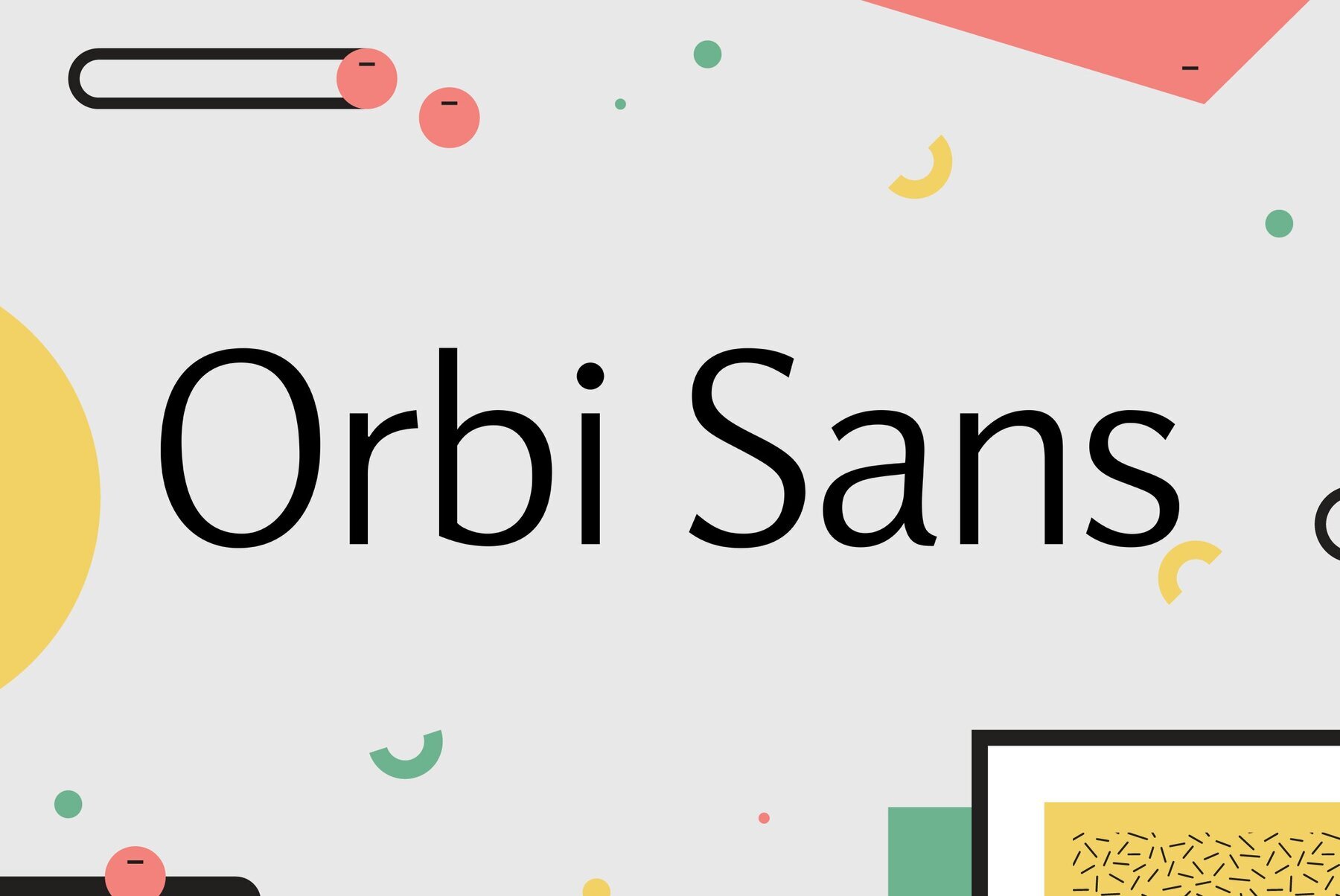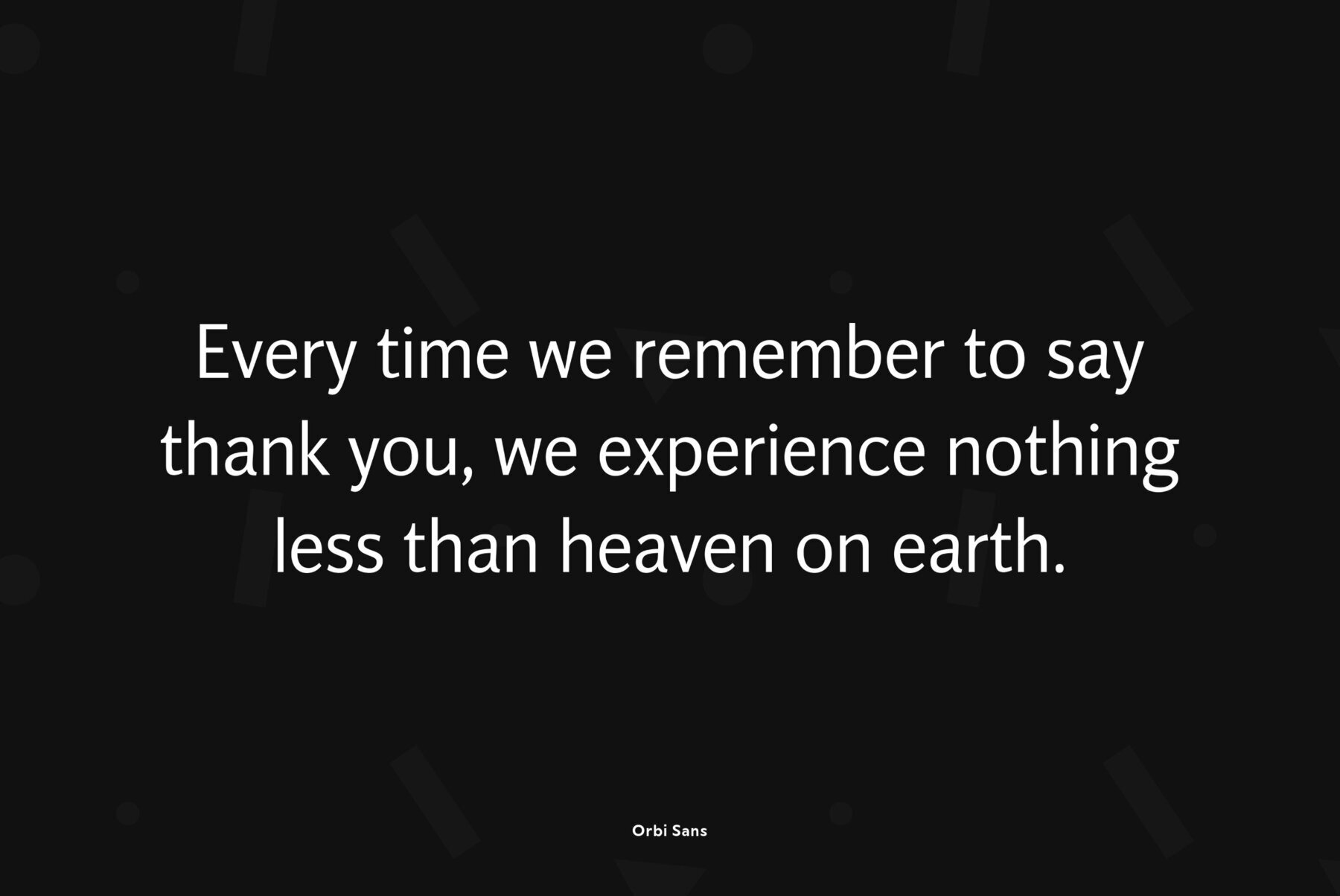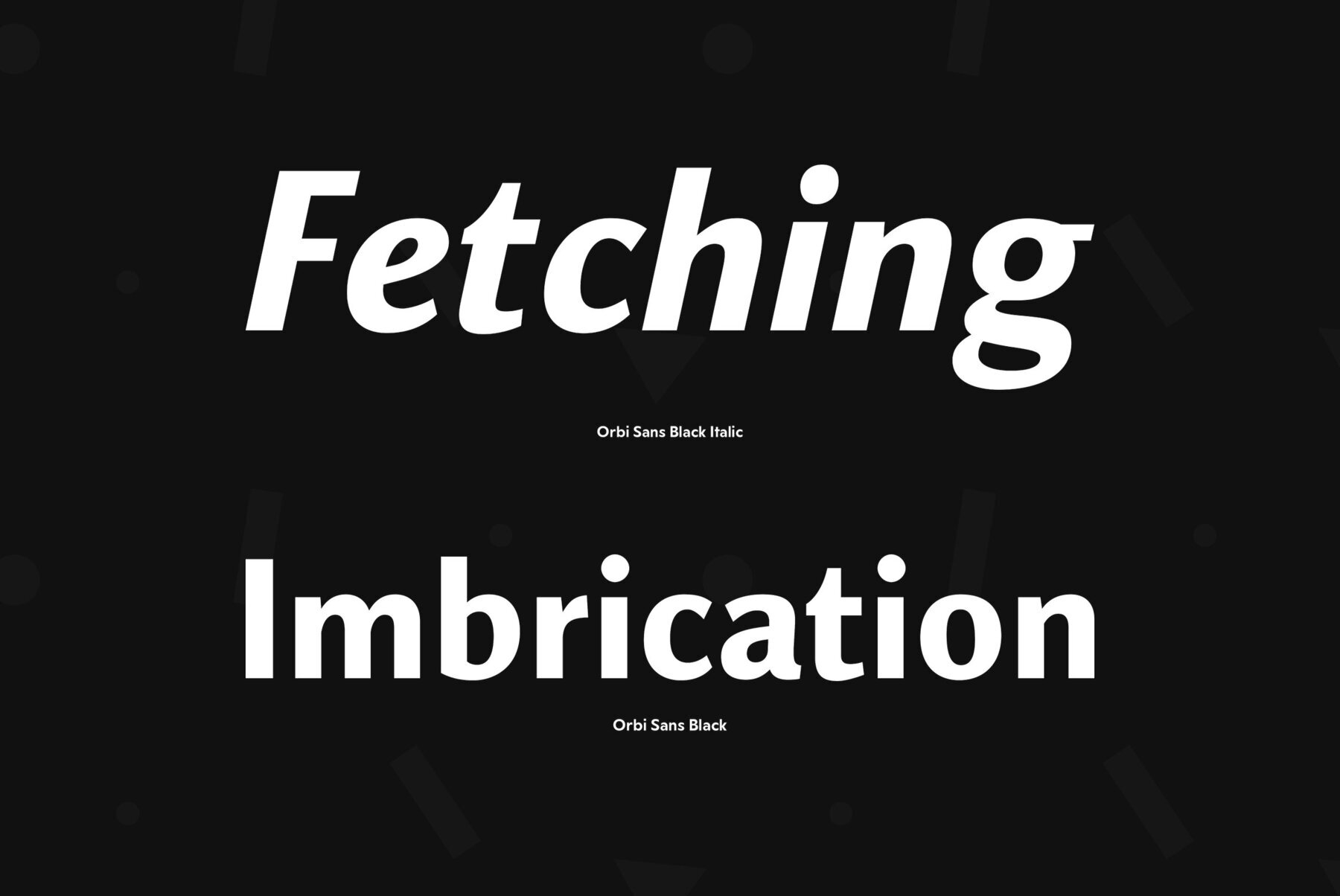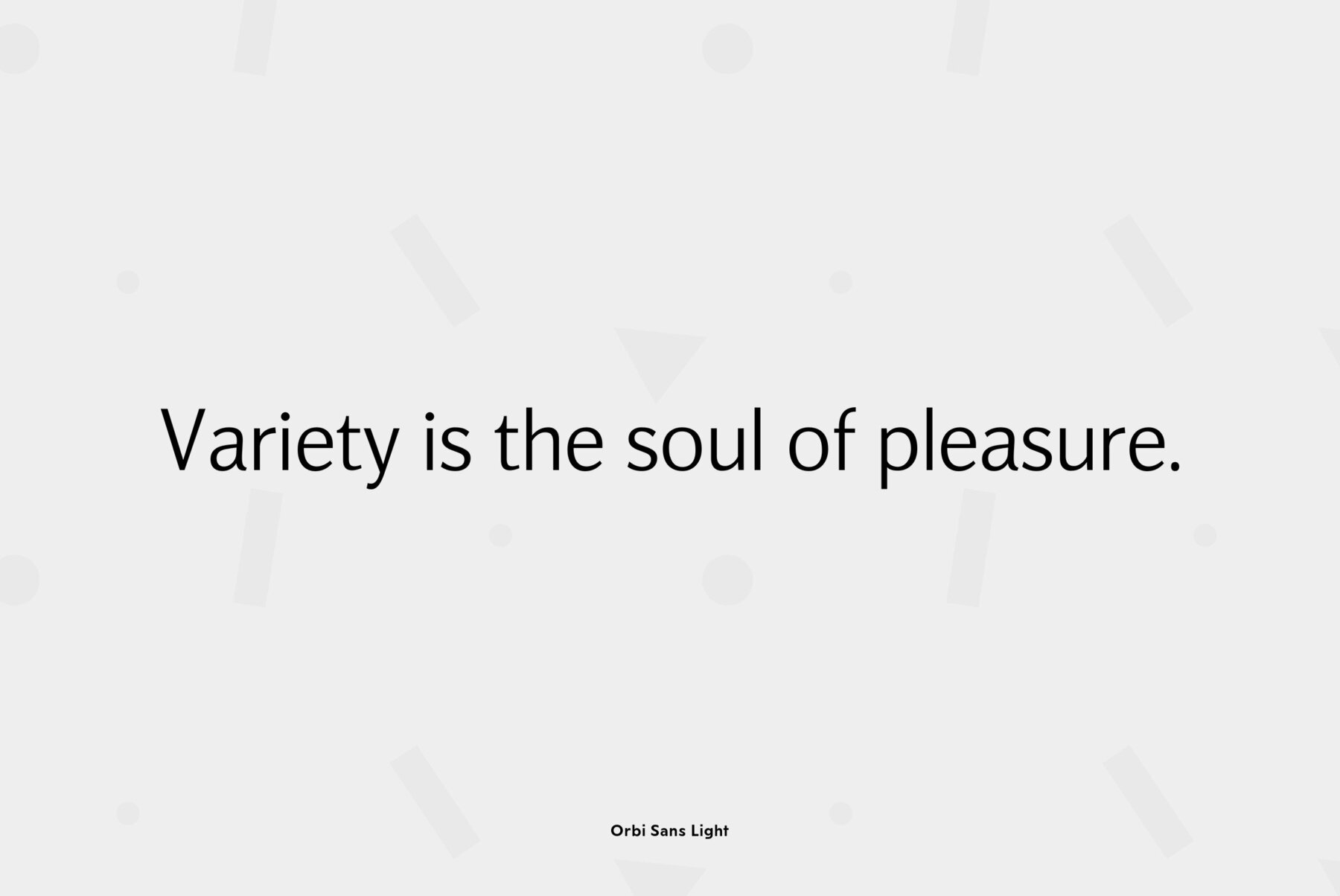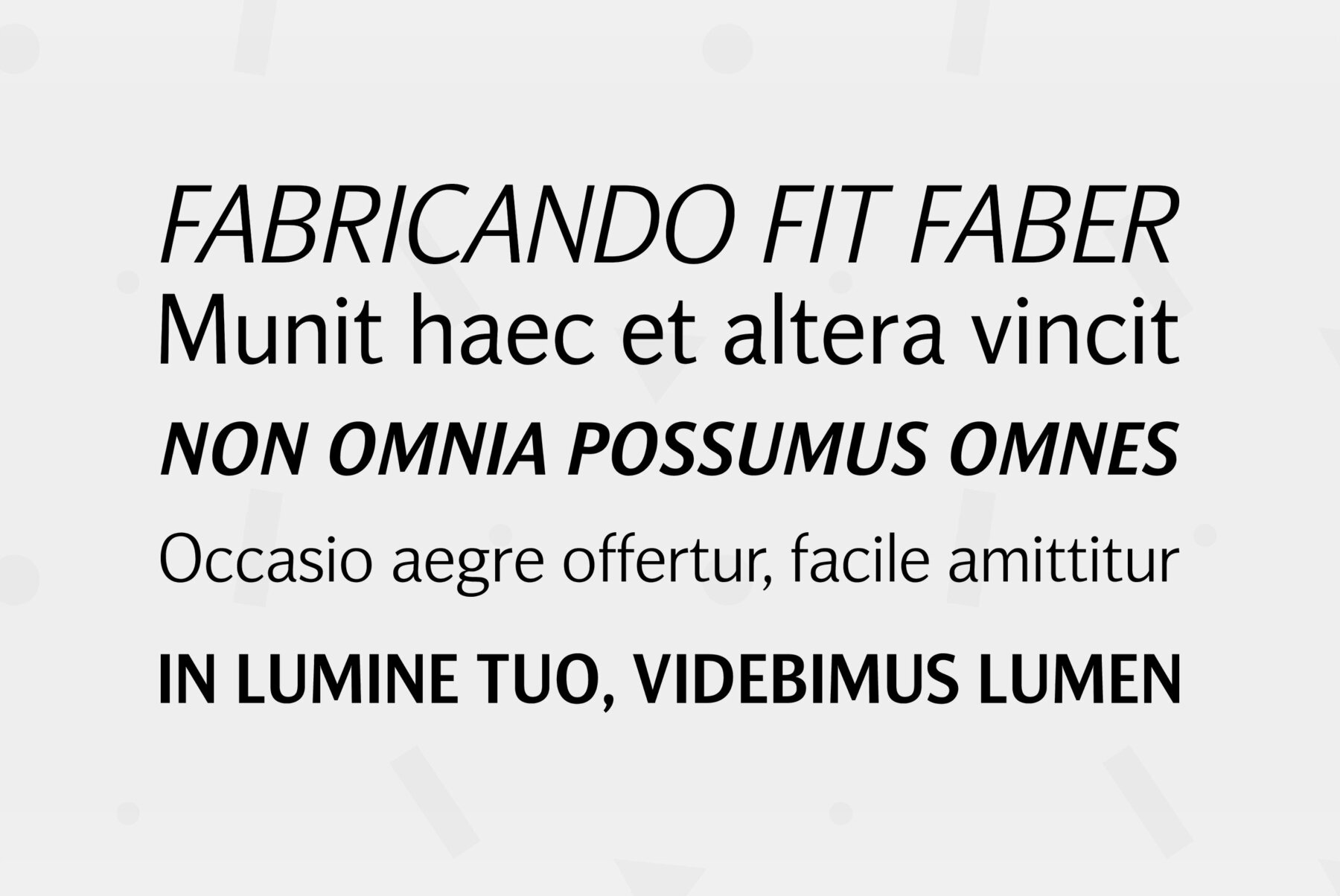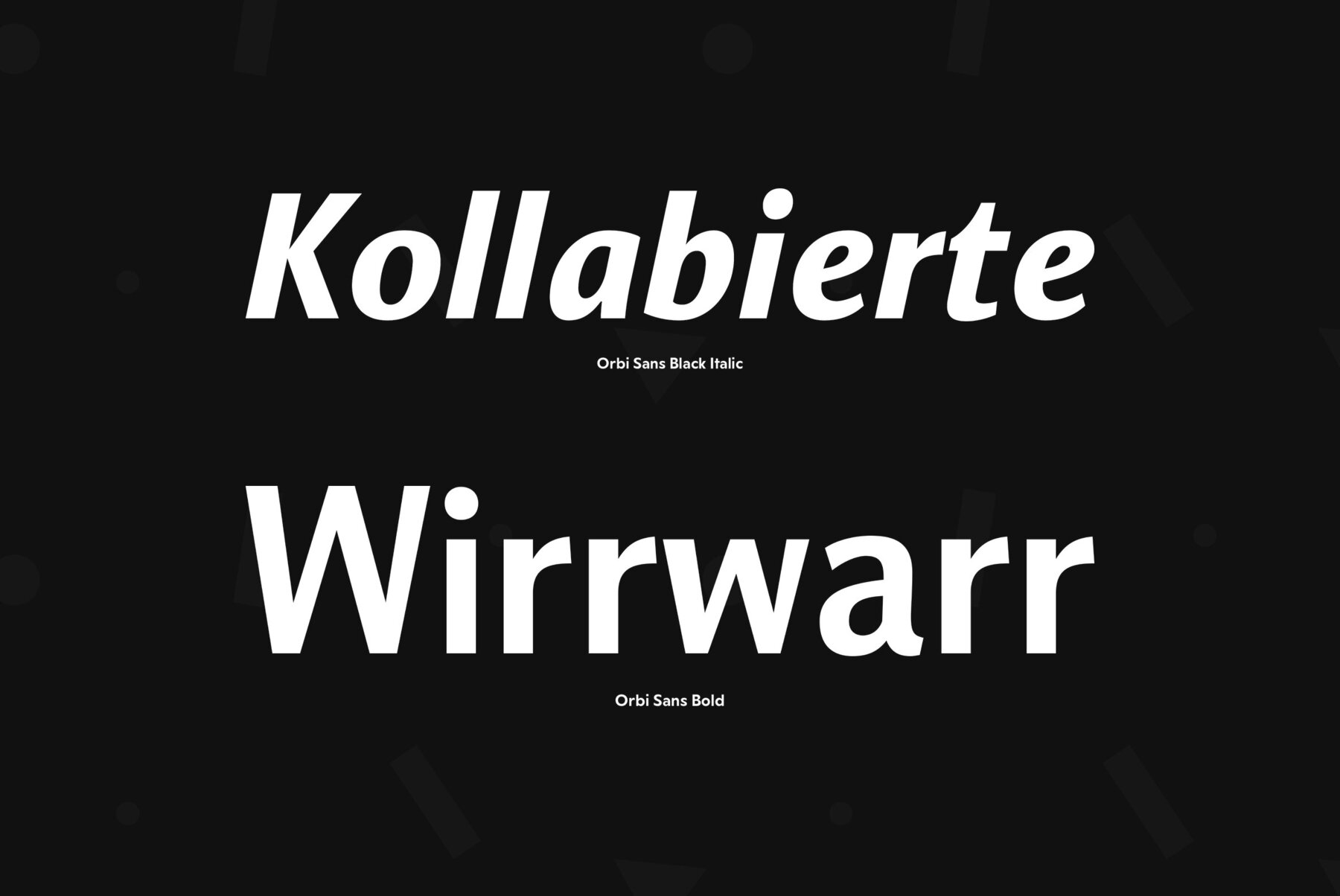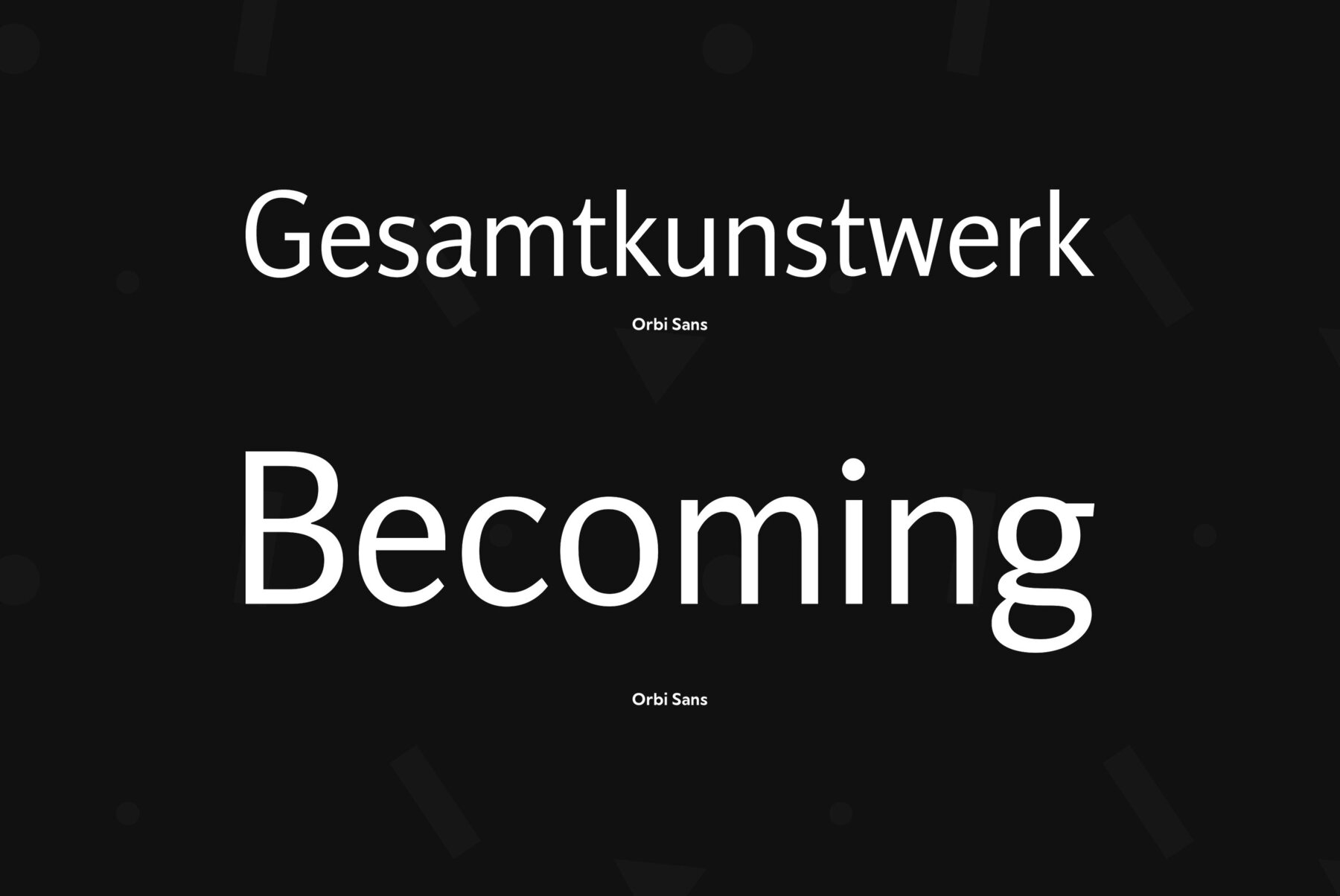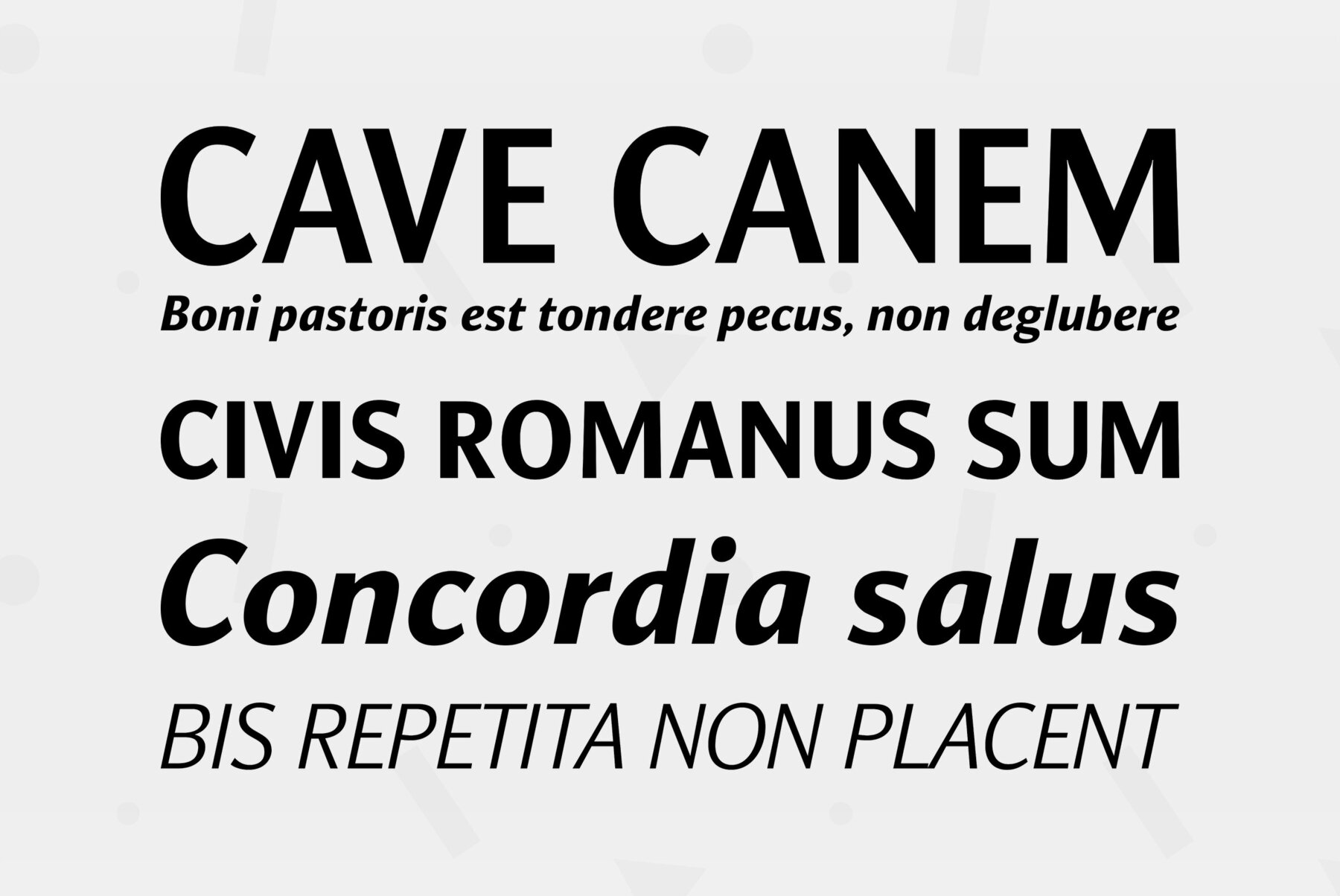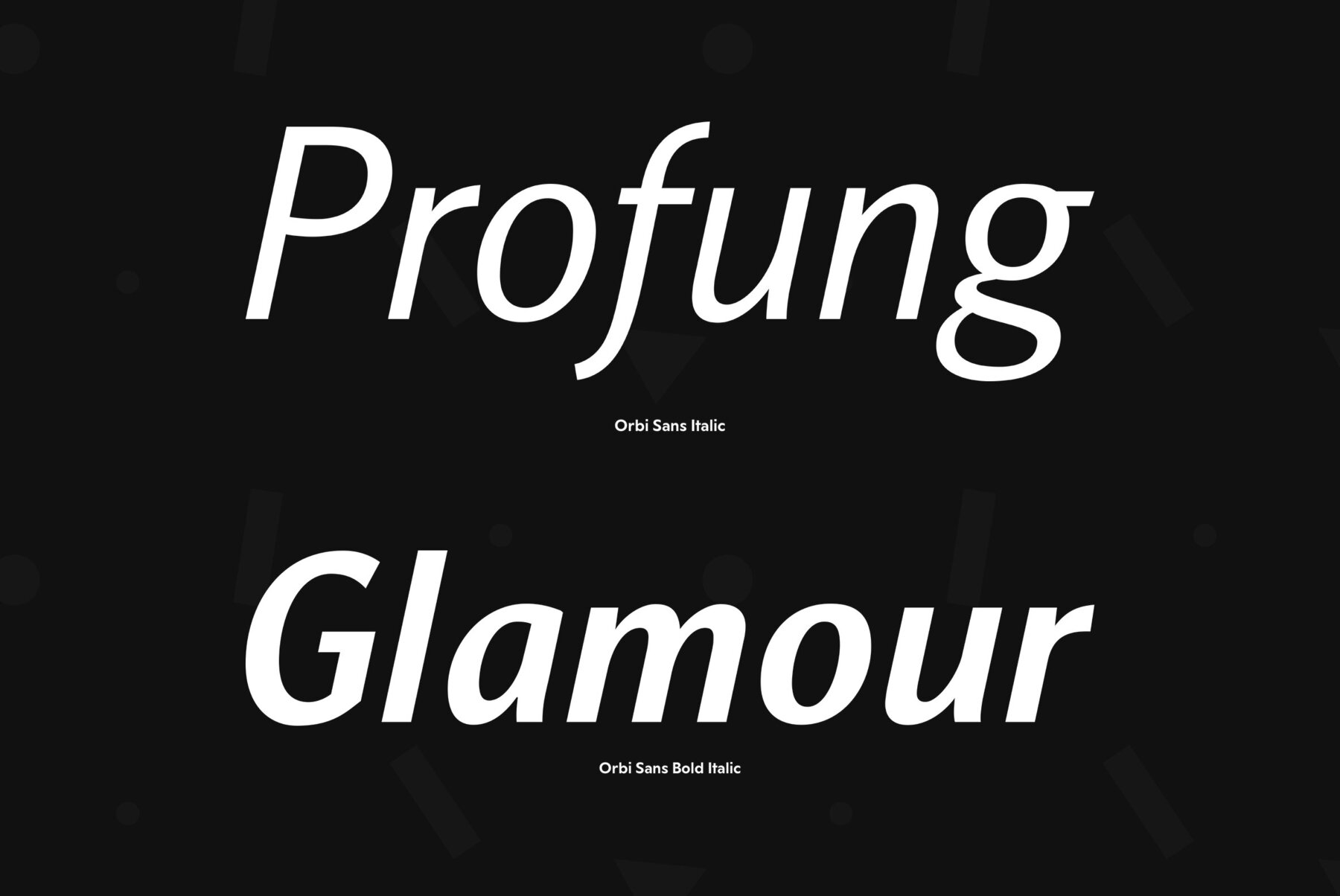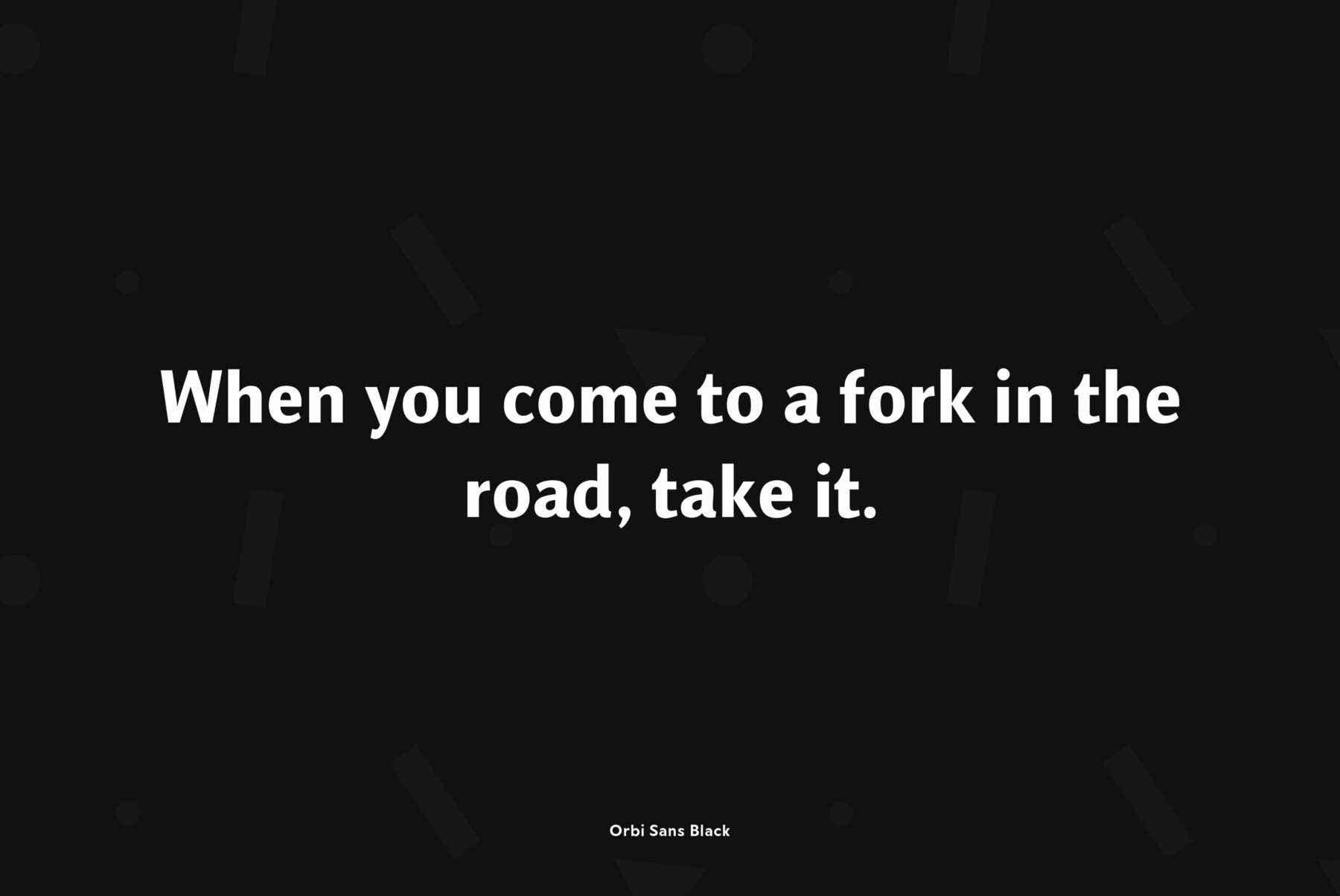
Orbi Sans
Orbi Sans was designed as an extension of the font system Orbi released on the end of 2010. It’s a low contrast humanist sans serif of open design with the elements of dynamic nature that inherited from Orbi its elegance and clearness. The faces were coordinated with Orbi on metrics, proportions, weights, and design features. Orbi Sans consists of 4 roman weights with corresponding true italics. It can be used together with Orbi and separately. Due to wide variety of styles the family is very good for books, periodicals, and business papers. The fonts were designed by Natalia Vasilyeva. Released by ParaType in 2011.